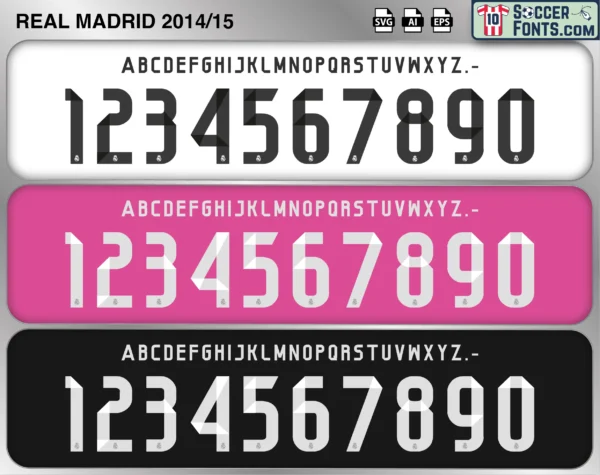
Real Madrid 2014-15 Font
The Real Madrid 2014-15 font is an editable soccer jersey lettering design in vector format inspired by the Real Madrid kit style used during the 2014-15 football season. This football font artwork is prepared for football shirt recreations, custom jersey projects, football kit mockups and sports graphic design workflows.
The 2014-15 season followed Real Madrid’s historic UEFA Champions League triumph and saw the club enter the campaign as European champions. Carlo Ancelotti continued leading a squad built around Cristiano Ronaldo, Gareth Bale, Karim Benzema, Luka Modrić, Toni Kroos, James Rodríguez, Sergio Ramos and Marcelo. New arrivals Kroos and James quickly adapted to life at the Santiago Bernabéu, strengthening an already world-class squad. During the first half of the season, Real Madrid achieved a remarkable winning streak of 22 consecutive matches in all competitions, setting a new club record and demonstrating the extraordinary quality of the team.
The Real Madrid 2014-15 font became associated with Cristiano Ronaldo’s continued dominance and one of the most entertaining attacking sides in European football. Although the club narrowly missed out on major trophies by the end of the campaign, the season featured outstanding individual performances and introduced Toni Kroos as a central figure in midfield for years to come. Real Madrid shirts from this era remain especially popular among football shirt collectors because of their connection with the BBC attacking trio at its peak and one of the strongest squads assembled during the modern Galácticos era. The Real Madrid 2014-15 font reflects a period of excellence, attacking football and global recognition as Real Madrid continued competing among the elite clubs in world football.